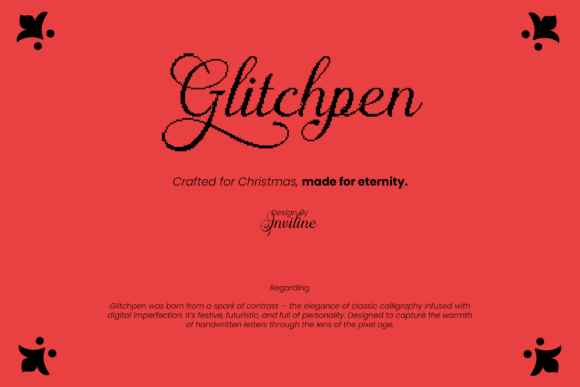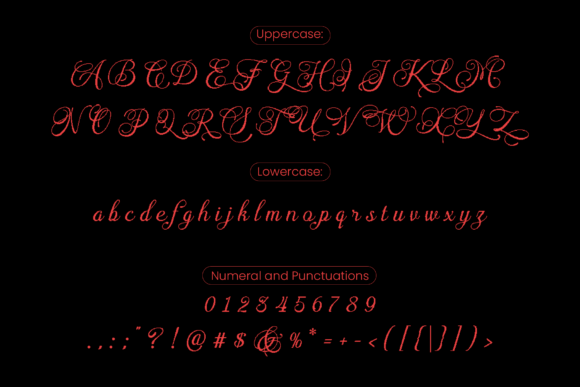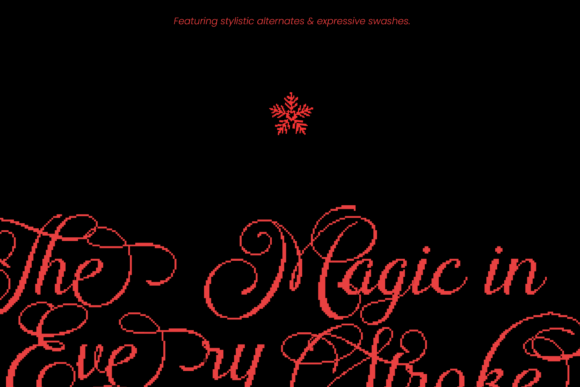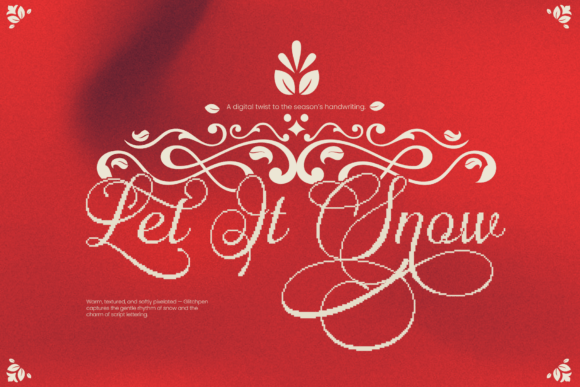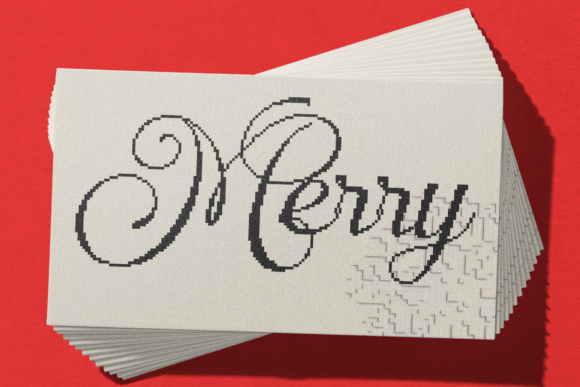
Introduction to Glitchpen Font
Glitchpen is a pixelated calligraphy swash font that blends the timeless elegance of classic script lettering with a subtle digital glitch aesthetic.
Inspired by festive warmth and the charm of handwritten greetings, this typeface reimagines traditional calligraphy through a pixel-based textureโcreating a look that feels both nostalgic and futuristic The flowing swashes, expressive alternates, and carefully balanced letterforms give Glitchpen a luxurious yet playful personality, perfect for Christmas designs, holiday campaigns, greeting cards, branding, posters, packaging, and editorial headlines.
Key Features of Glitchpen Font